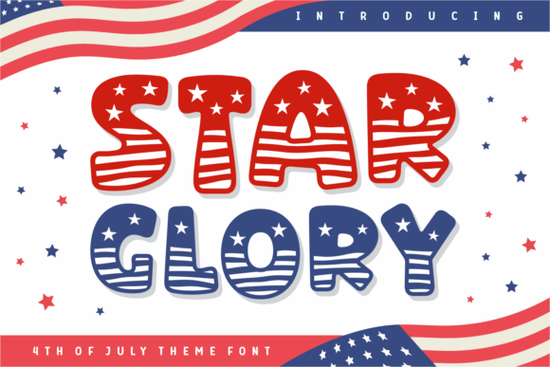
If you’re working on a project that calls for bold, patriotic flair think Fourth of July flyers, Veteran’s Day posters, or even small business signage around national holidays the Star Glory Font is worth a closer look. It’s not just another decorative typeface; it’s one that weaves American symbolism right into the letterforms, making your message feel instantly connected to heritage and pride.
Each character in Star Glory carries subtle nods to the U.S. flag: stars are nestled thoughtfully within curves and corners, while stripes flow along stems and crossbars like ribbons of history. You don’t need to add extra graphics or overlays the font itself does the storytelling. That makes it especially handy if you’re short on time but still want something visually rich and thematically strong.
What kinds of projects work best with this font?
This isn’t a font you’d use for body text or minimalist branding. It shines where impact matters think:
- Event banners for Memorial Day parades or community picnics
- T-shirt designs sold around patriotic holidays (great for print-on-demand shops)
- Social media headers for local businesses running holiday promotions
- Invitations or programs for military appreciation events or school history fairs
- Wall art or decals for home decor with a vintage Americana vibe
Because of its ornate detailing, pairing it with clean, simple sans-serif fonts works well. Try using Star Glory for headlines or titles, then switch to something neutral like Helvetica or Montserrat for supporting text. This keeps your design balanced without losing the emotional punch the font delivers.
How does it compare to other themed fonts on Creative Fabrica?
There’s no shortage of holiday-themed or Americana-style fonts out there, but few embed actual flag elements so seamlessly into the glyphs. Most alternatives rely on clip-art style embellishments or require layered effects to achieve a similar look. With Star Glory, everything’s built-in which saves you steps in editing software and ensures consistency across all characters.
Any tips for crafters or small business owners using this font?
Absolutely. If you’re cutting vinyl or preparing files for embroidery, test the smallest readable size first. Some intricate details in Star Glory might get lost if scaled too small aim for at least 72pt for physical applications unless you’re going for a distressed or abstract effect intentionally.
Also, consider color. The classic red, white, and blue combo obviously fits, but try reversing it (white letters on navy) or using metallic gold instead of yellow stripes for a more upscale twist. These tweaks can help your product stand out in crowded marketplaces like Etsy or Shopify stores targeting niche audiences.
One thing to note: because of its decorative nature, some apps may render it slightly differently depending on anti-aliasing settings. Preview your output at actual size before sending anything to print or cut.
Quick checklist before you start designing:
- Scale wisely avoid tiny sizes where detail gets muddy
- Pair smartly combine with a plain sans-serif for readability
- Color creatively experiment beyond traditional flag tones
- Preview outputs especially if exporting for print or cutting machines
Whether you're crafting handmade gifts, running seasonal campaigns, or building themed merchandise, Star Glory gives you a ready-made visual language rooted in American tradition without needing to layer graphics or spend hours customizing. Sometimes, the right font really does carry half the design weight for you.